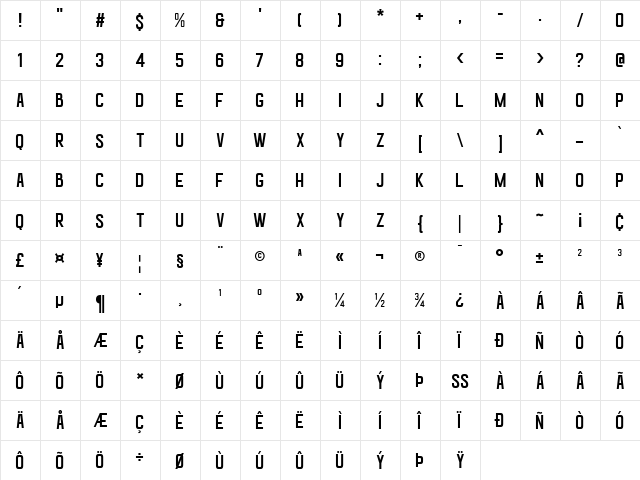
Goldana Base
| Foundry | SeventhImperium Type Foundry |
| Designer | Cucu Supriyadi |
Design Context for Goldana Typeface
Goldana takes a measured approach to typography — its balanced proportions and neutral character make it a reliable workhorse for both digital and print work.